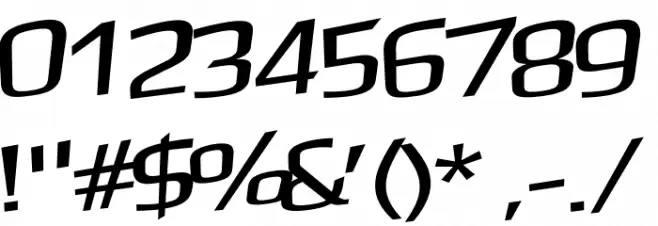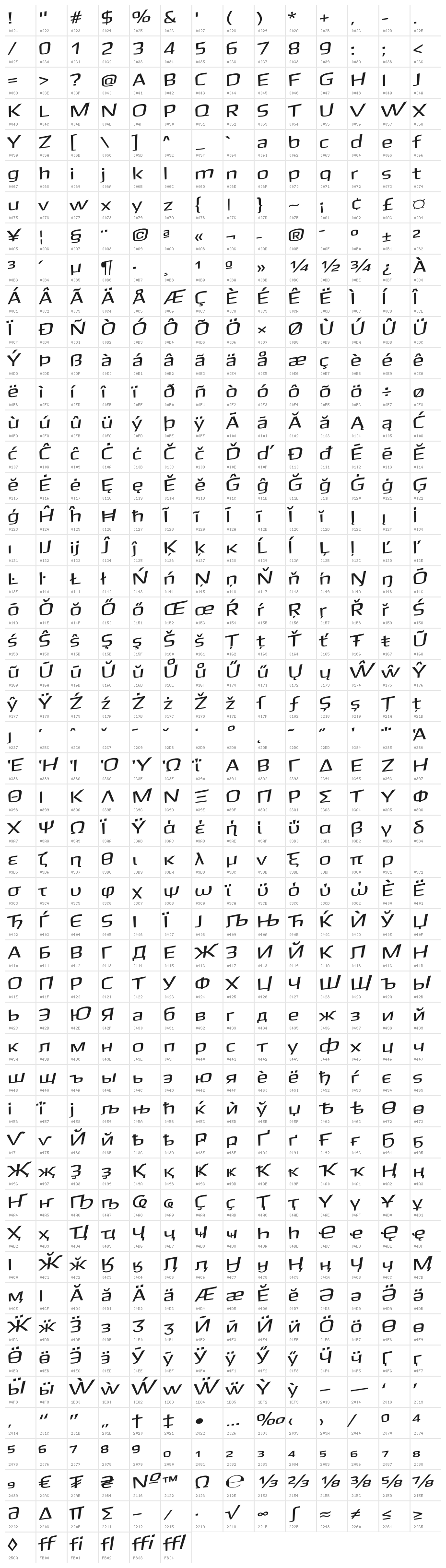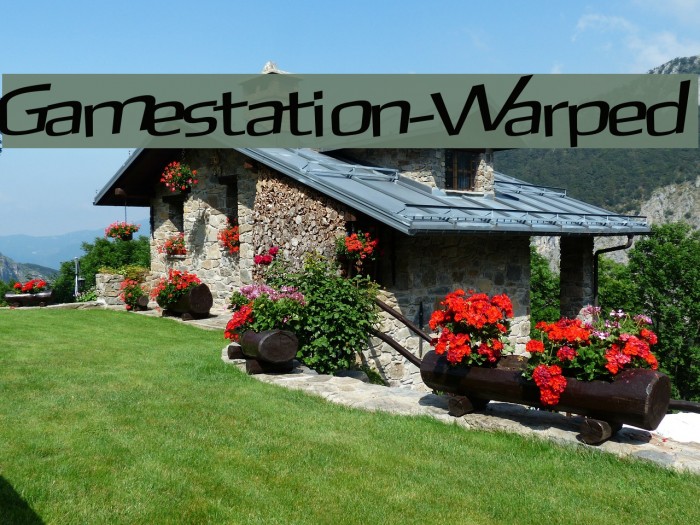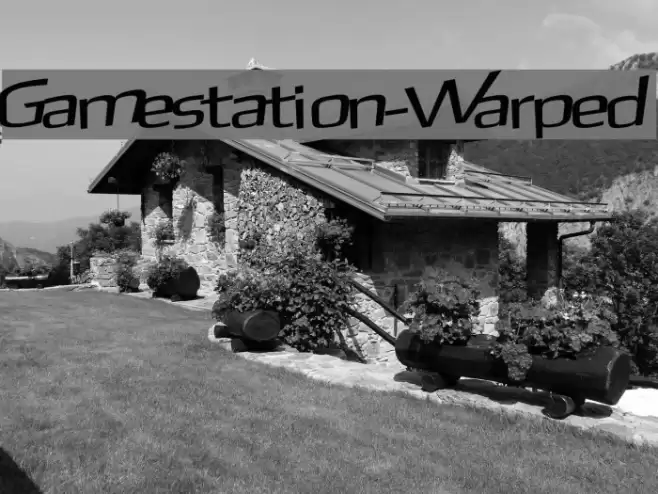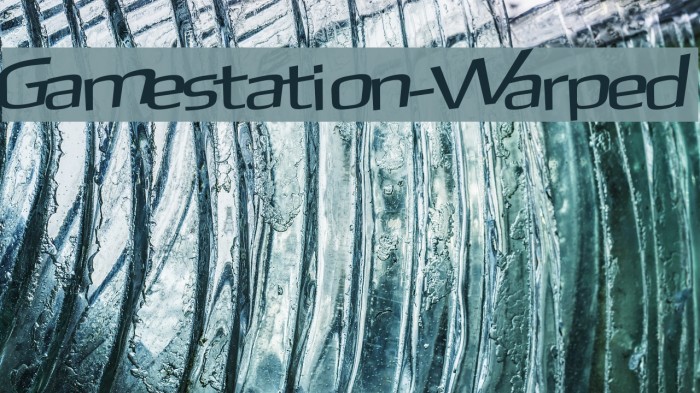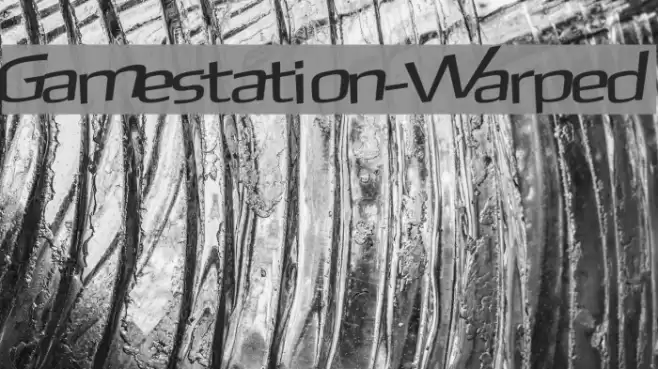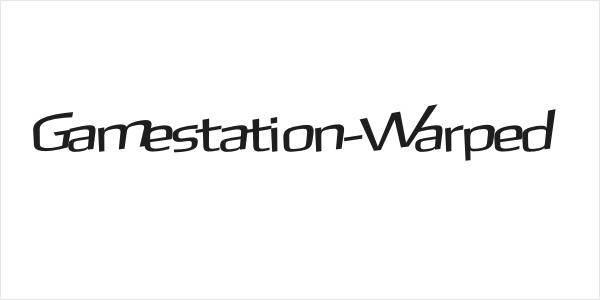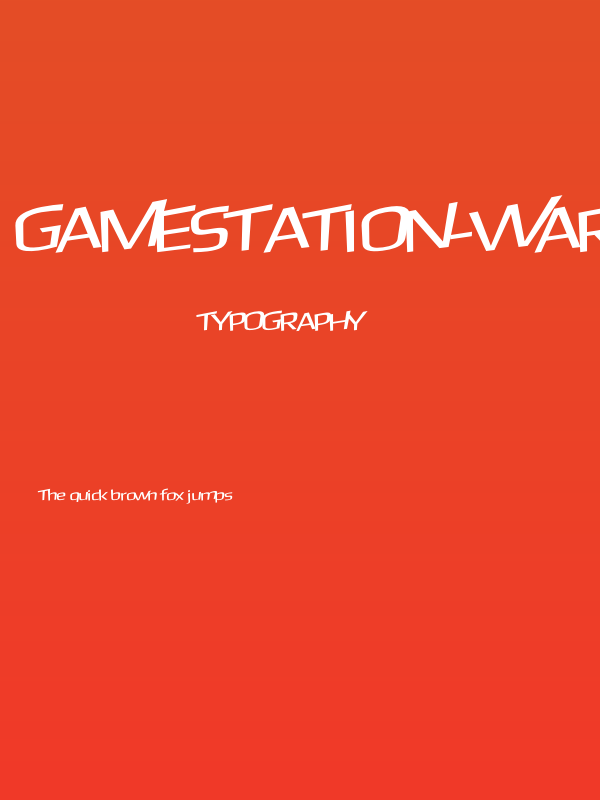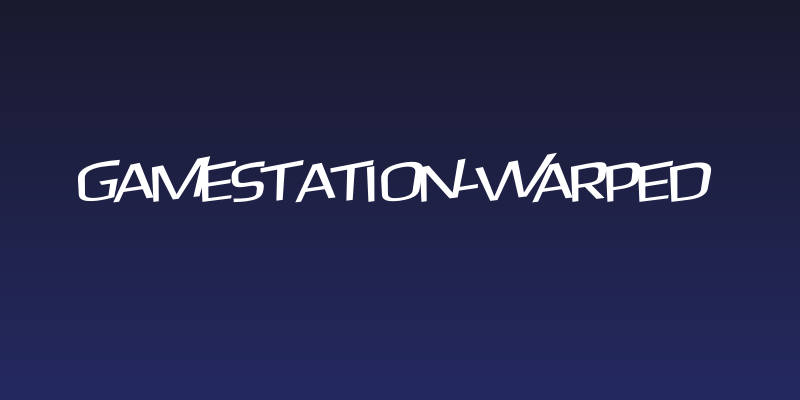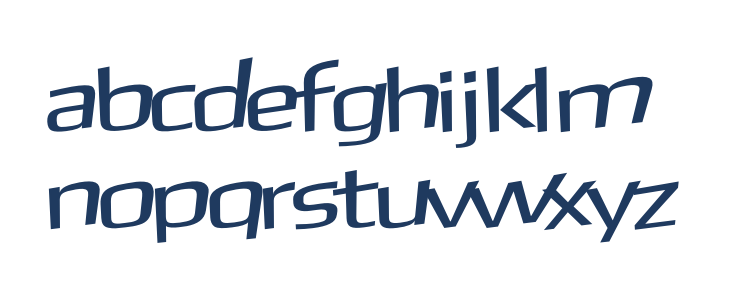
Gamestation-Warped Font
Gamestation-Warped Description
This font features a dynamic and futuristic design with a distinct slant, giving it a sense of motion and energy. The characters are slightly condensed, with sharp angles and clean lines that contribute to a modern aesthetic. The uppercase letters maintain a consistent height, while the lowercase letters are slightly smaller, providing a balanced appearance. The numerals are bold and clear, ensuring readability. Special characters are uniquely styled to match the overall theme, making this font suitable for creative and tech-oriented projects.
| Proposed Projects | Ideal for video game titles, tech branding, futuristic posters, and digital interfaces. |